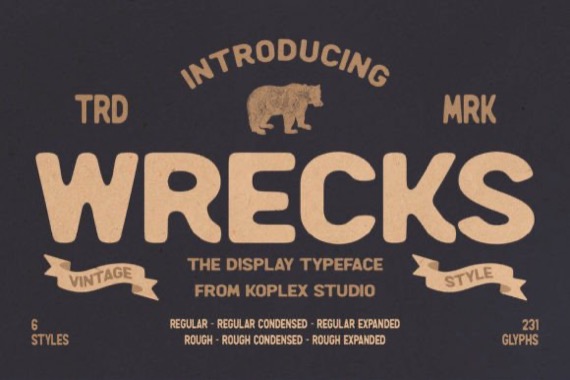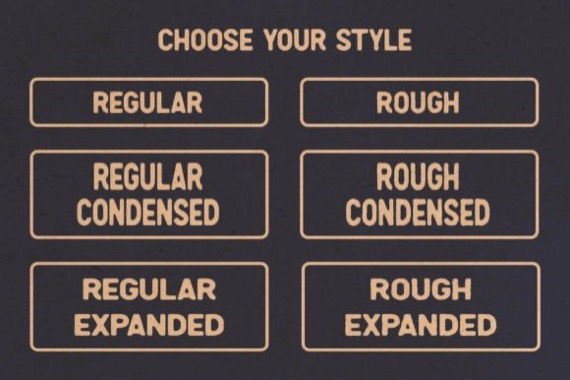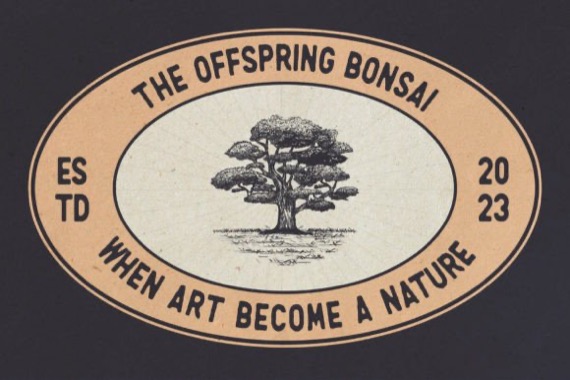
Wrecks is a unique and captivating vintage display font that is specialty created for classic designs. This font exudes an aura of authenticity and retro appeal, making it the perfect choice for a wide range of creative projects. Whether you’re designing a classic poster, crafting a vintage-inspired logo, or working on a retro-themed website, Wrecks is the ideal companion.
Wrecks Vintage Display Font
Designer, Publisher: Koplexs Studio